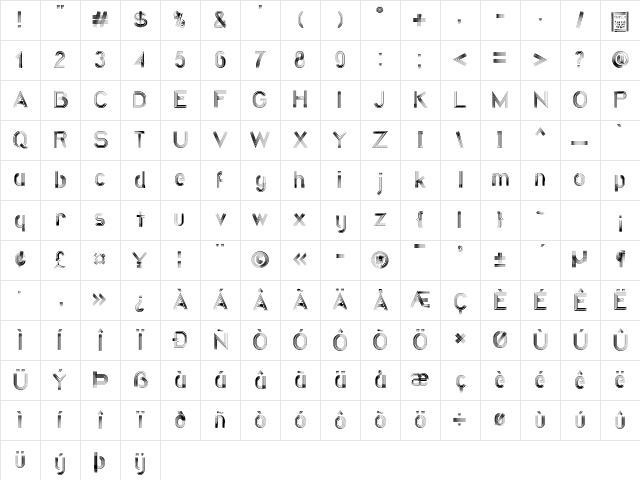
Quatroline Regular
Foundry: StudioTypo
Design Context for Quatroline
Quatroline is a composed and adaptable typeface that performs quietly and consistently across a wide range of design contexts.